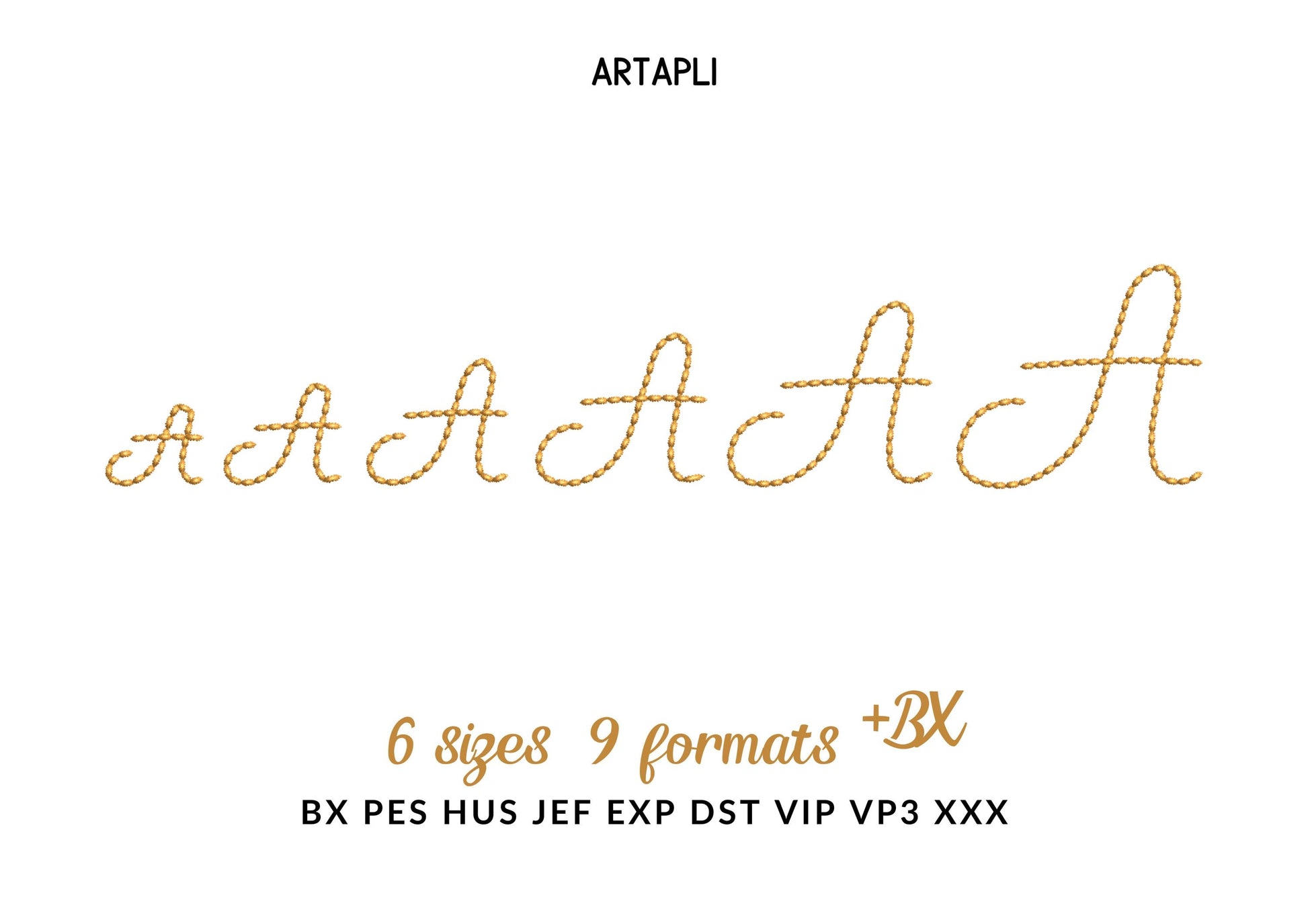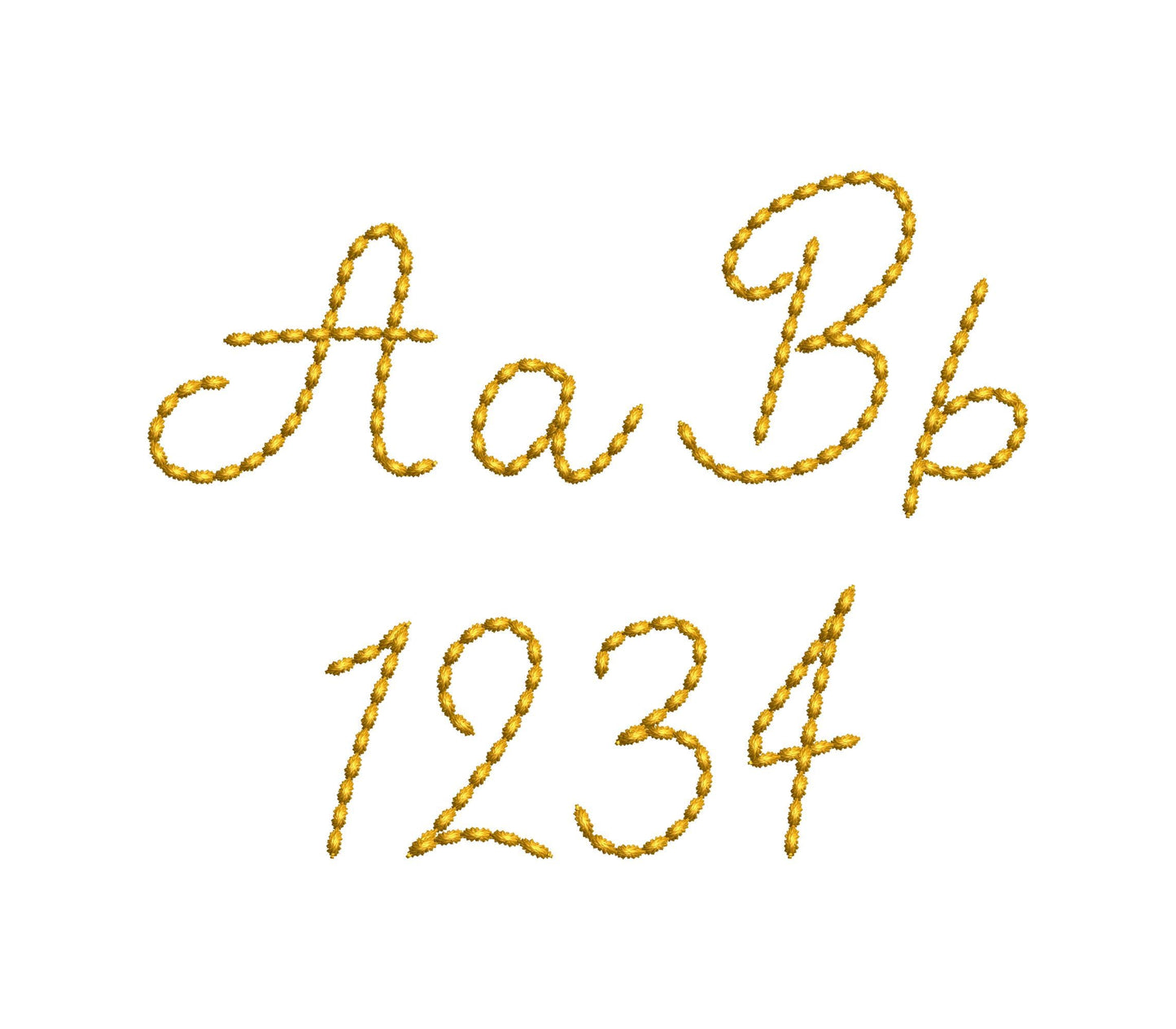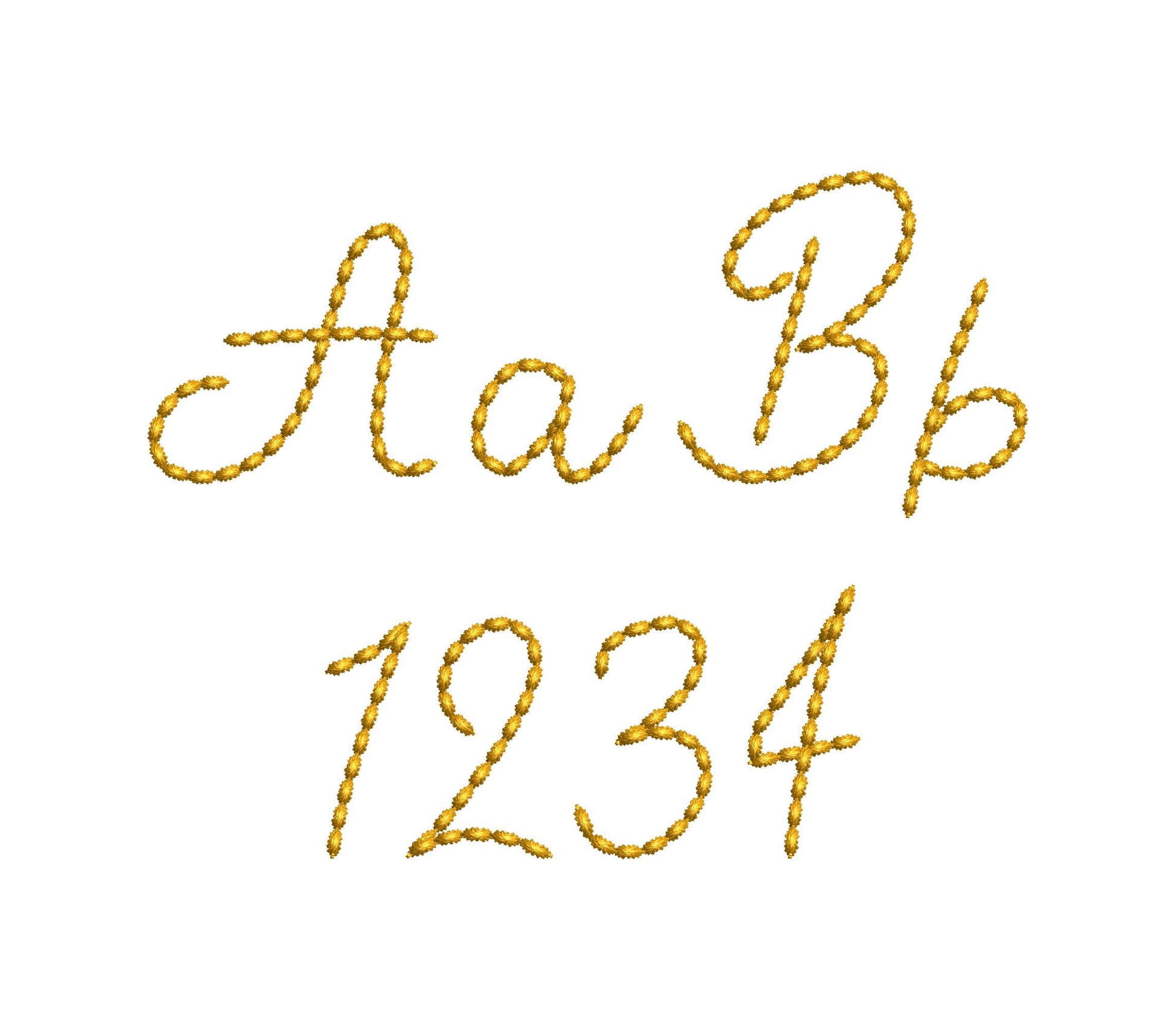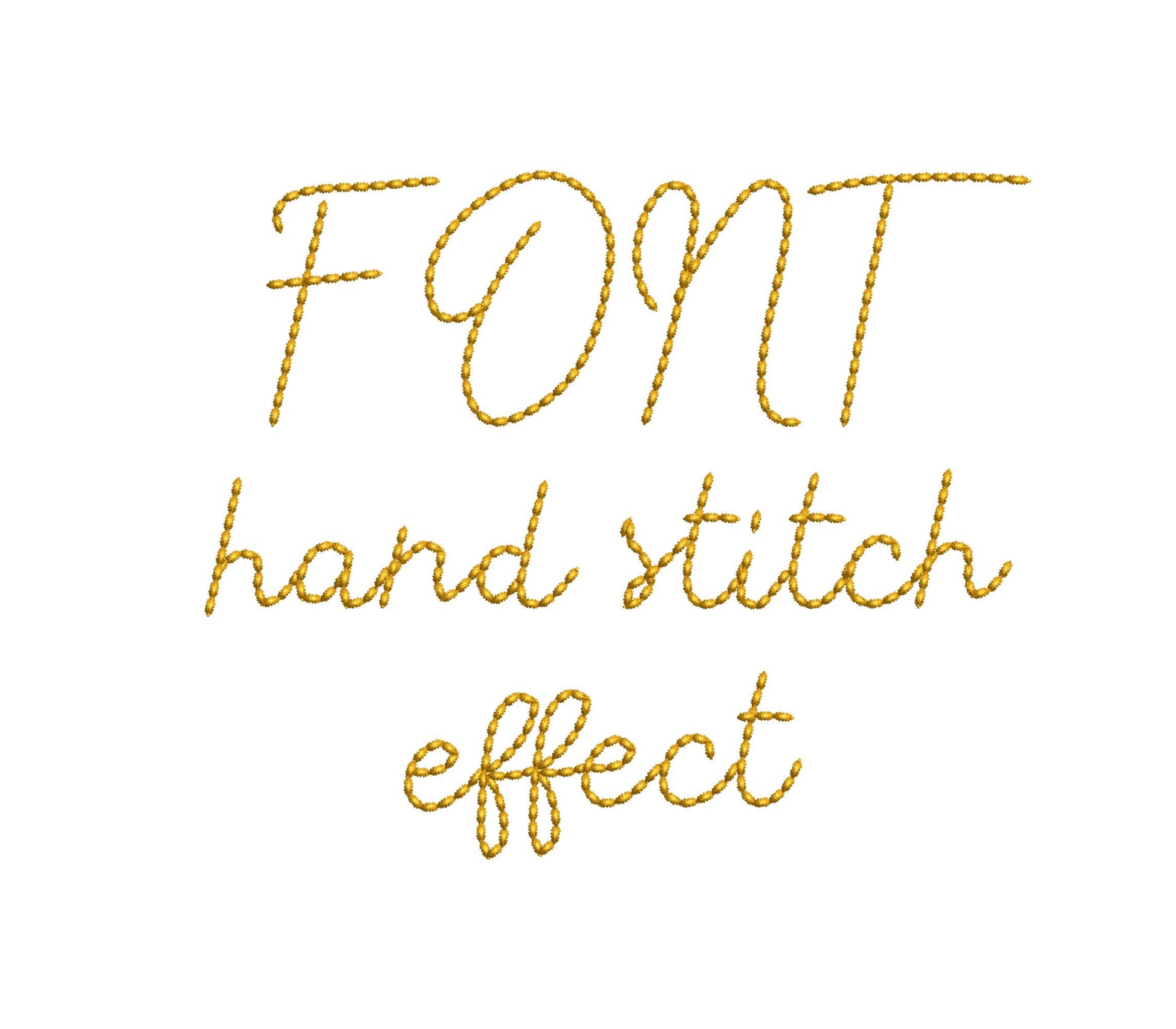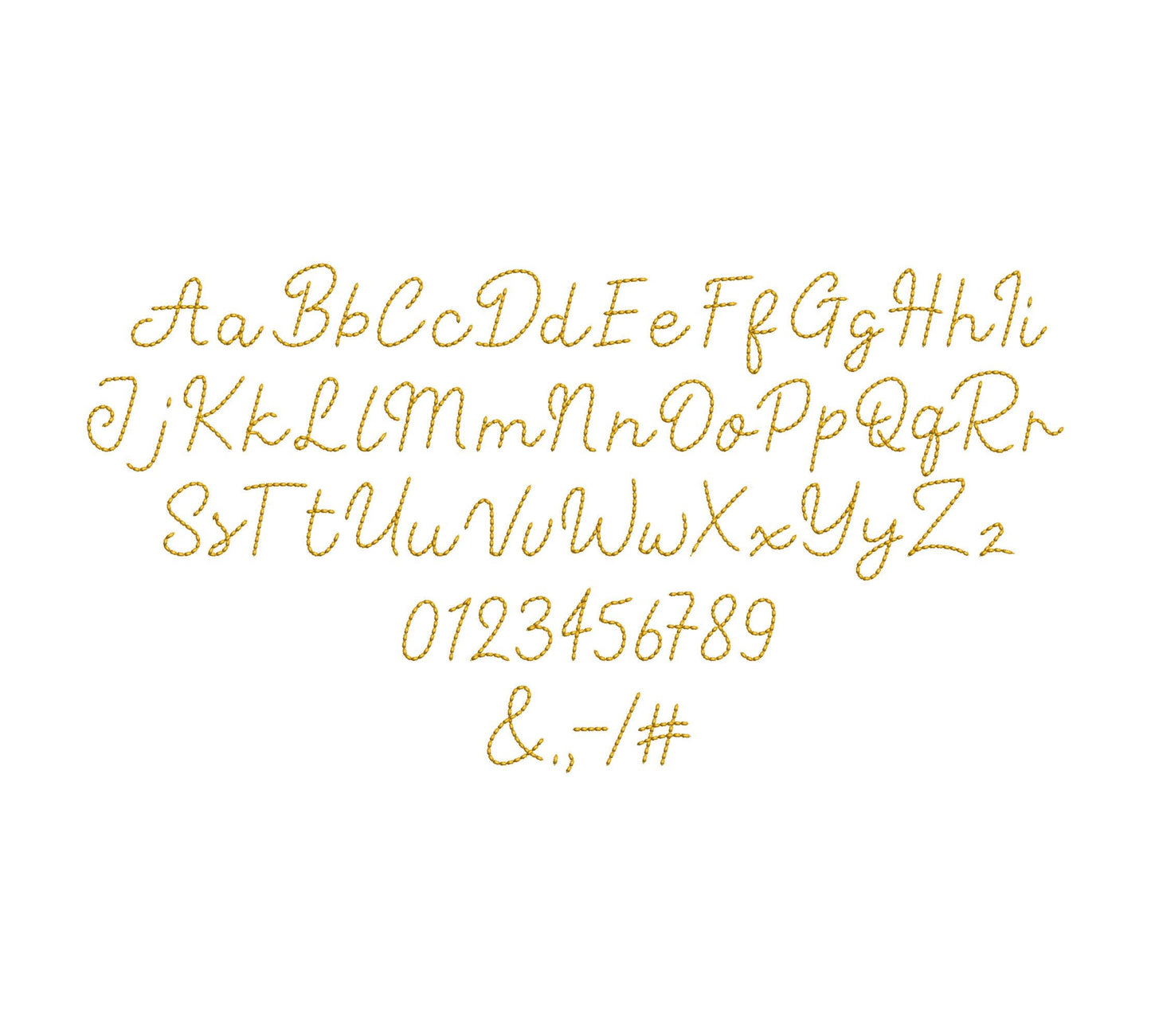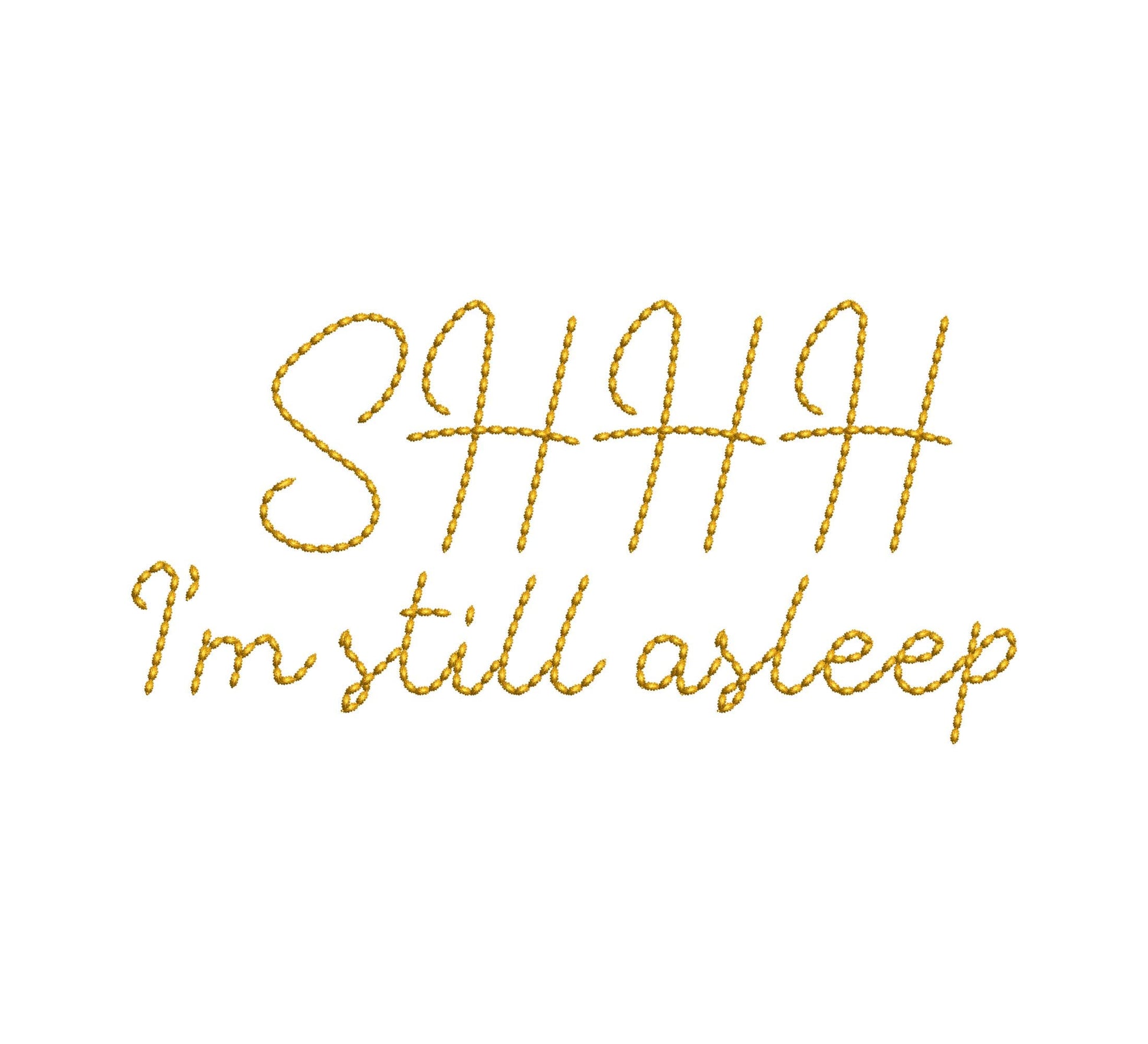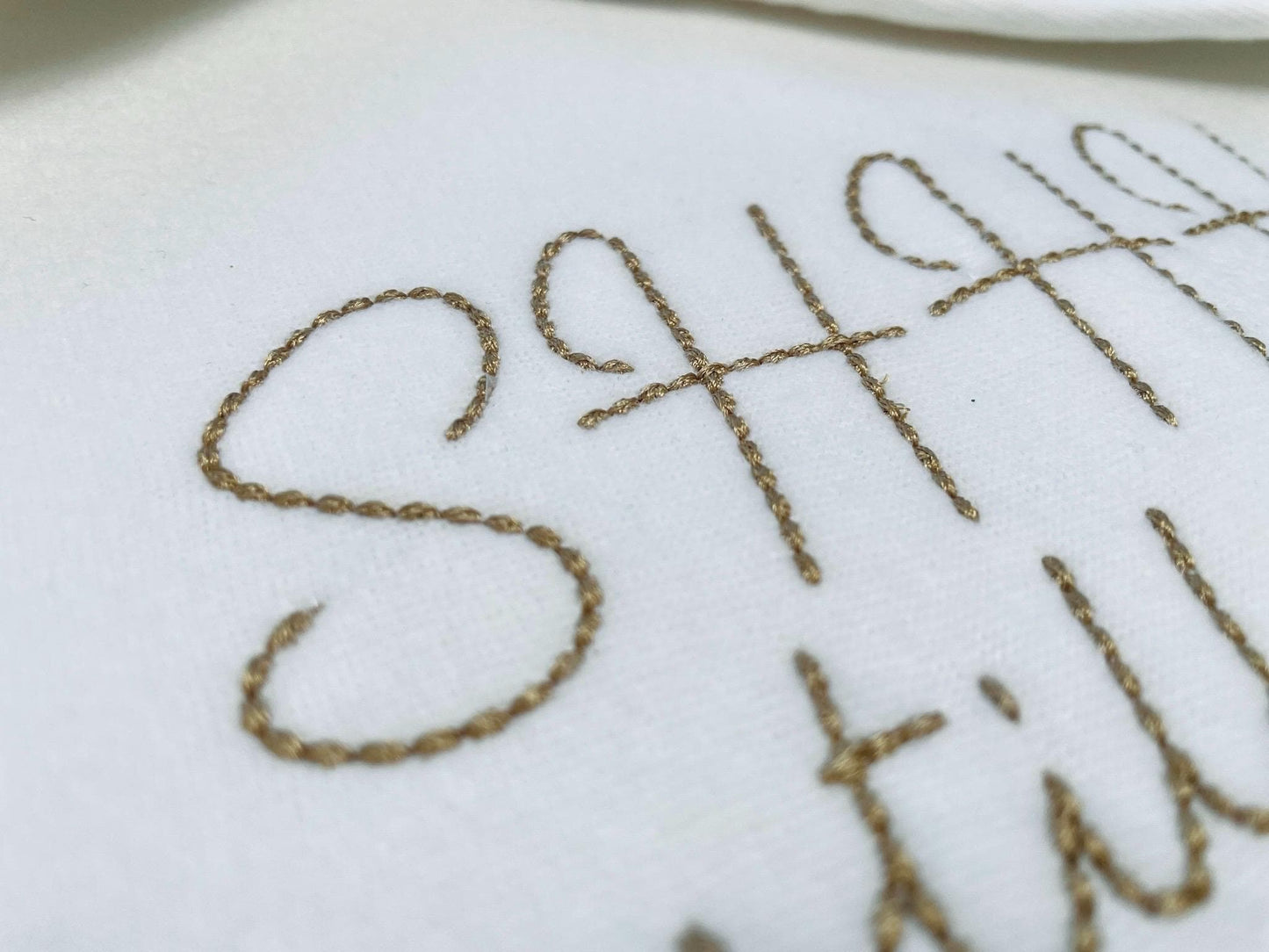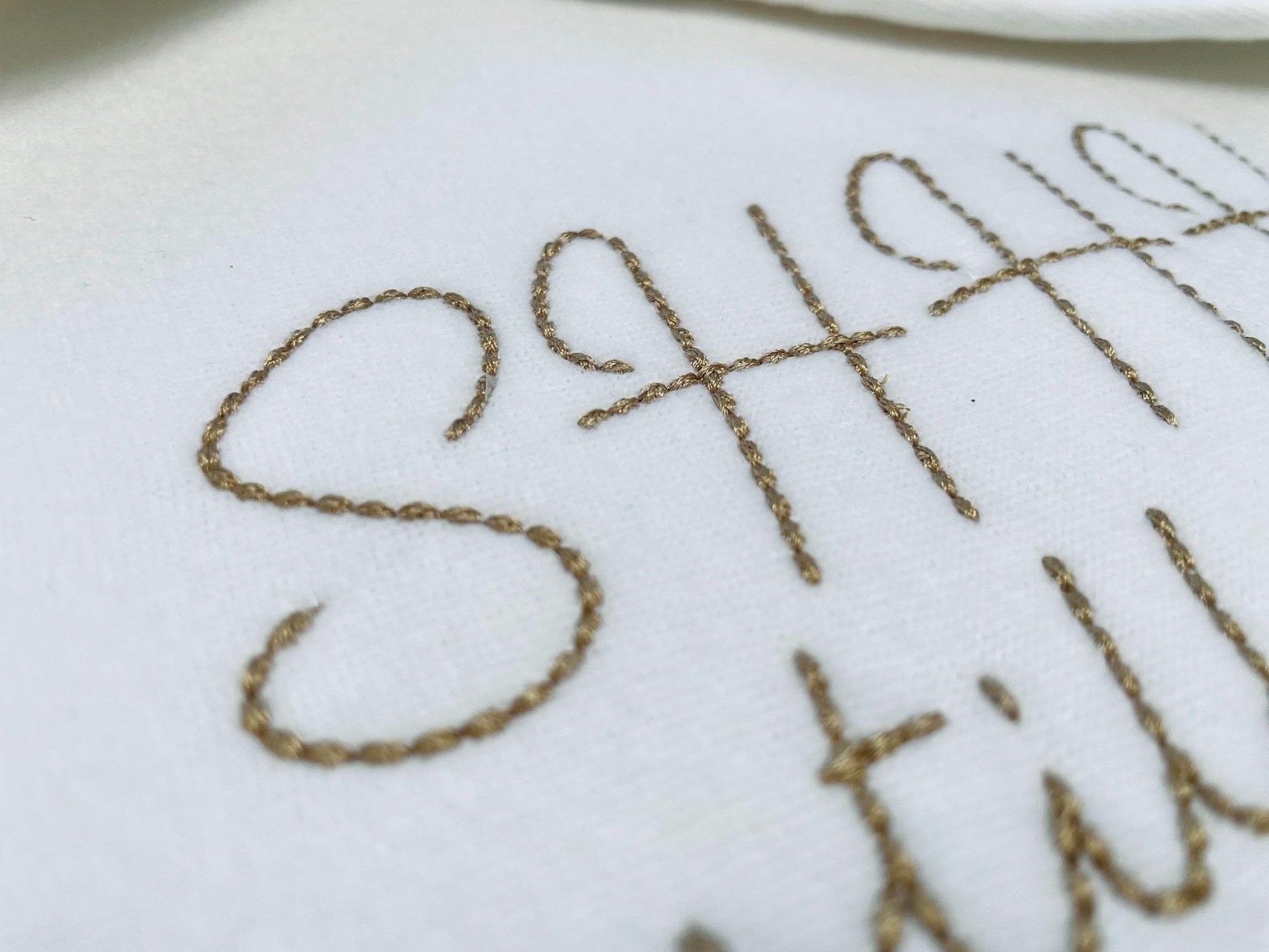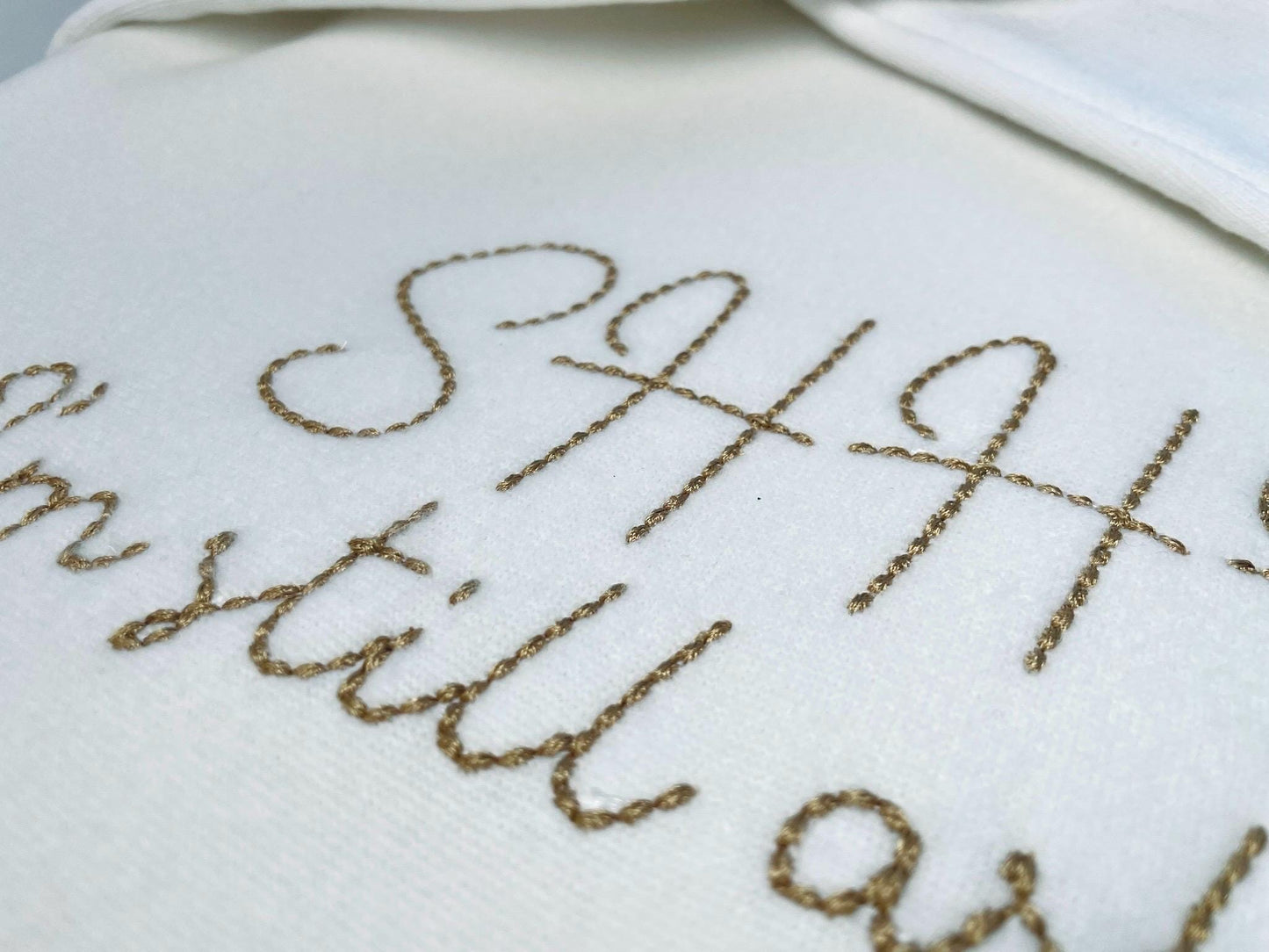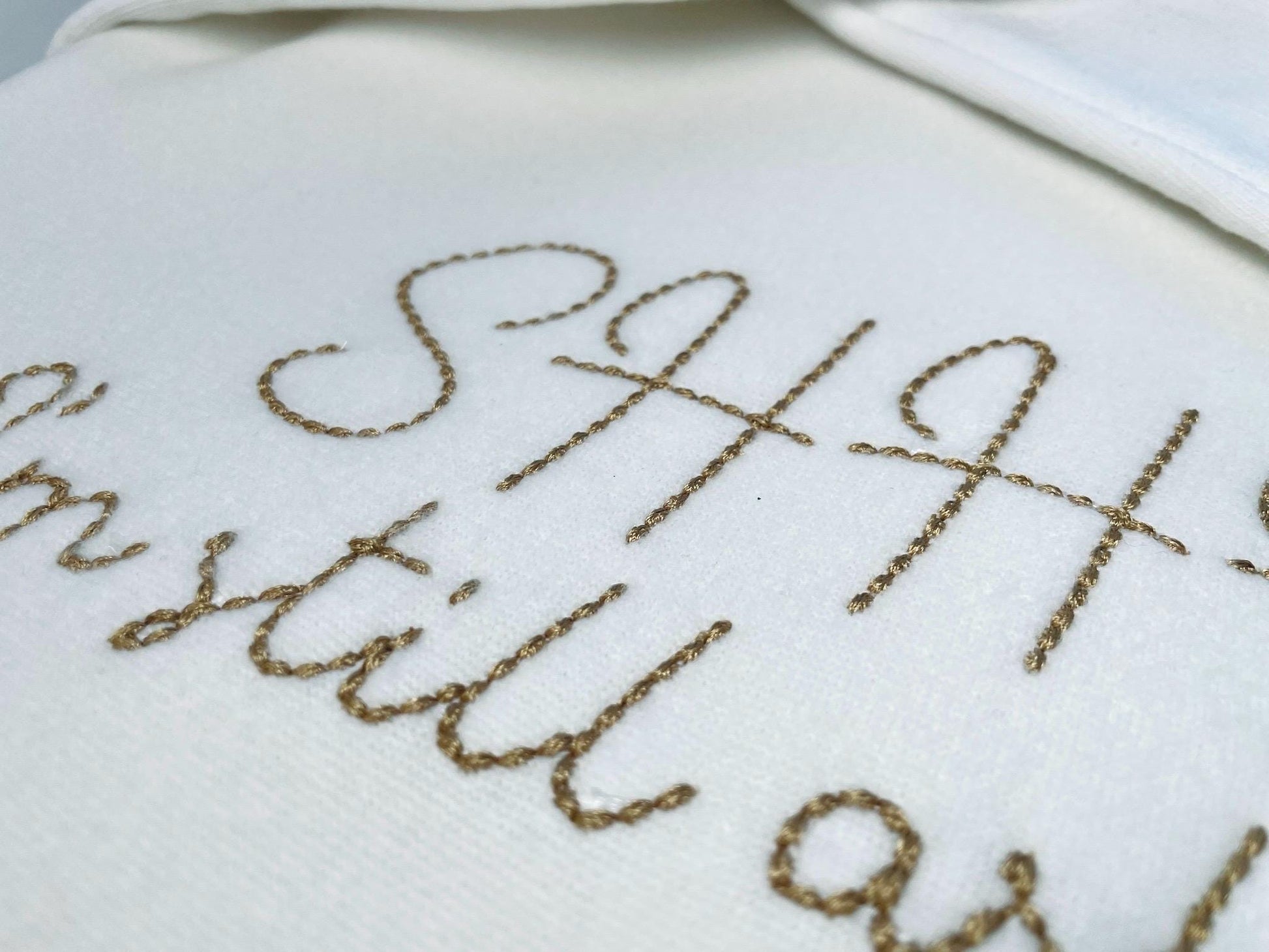
Hand Stitch Effect Font Willow
The letters come in six sizes: 0.8, 1, 1.3, 1.5, 1.9 and 2.3 inches. A light stitch gives the letters the look of hand embroidery. Includes uppercase and lowercase letters A to Z, numbers 0 to 9 and punctuation.
- Hand stitch effect script font
- 6 sizes, 0.8 to 2.3 in